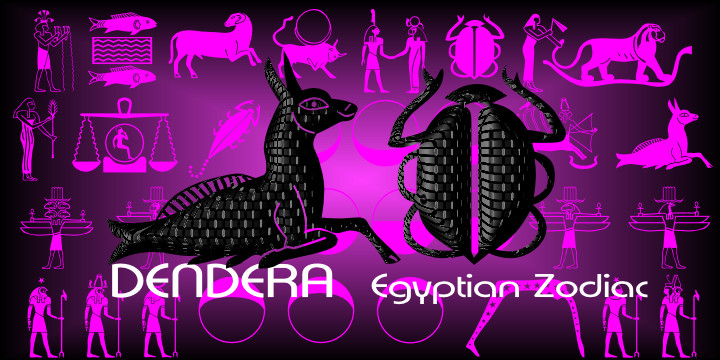
This font is perfect for historical presentations, museum exhibits, educational materials, themed event invitations, archaeological documentaries, and any project that calls for an authentic ancient Egyptian vibe. It brings the mystique of the Nile straight into your design work.
What makes the Egyptian Hieroglyphics – Dendera Font so thrilling is its meticulous recreation of ancient hieroglyphic symbols. Each glyph is carefully crafted to reflect the iconic writing system of one of the world’s oldest civilizations, making your projects stand out with a unique, timeless character.
The font family typically focuses on a full set of hieroglyphic symbols rather than multiple weights or styles, aiming for authenticity and historical accuracy rather than typographic variety.
For designers, educators, and historians aiming to evoke the grandeur and mystery of ancient Egypt, Egyptian Hieroglyphics – Dendera Font Free Download offers a direct link to the past. Use it to bring stories from thousands of years ago into today’s digital age.